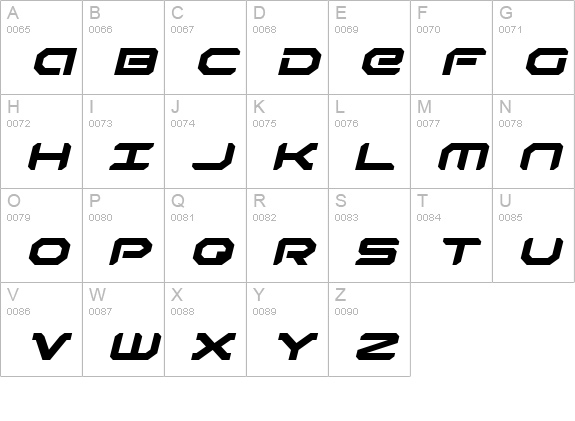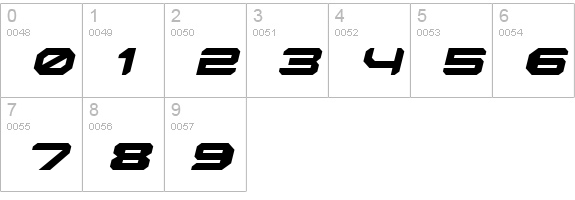
Robotaur Expanded Italic is a distinctive, extended-width, italic variant in the Robotaur typeface family \xE2\x80\x94 well suited to design and typography projects.
Introducing Robotaur Expanded Italic font, a sleek and modern typeface perfect for adding a touch of sophistication to your design projects. The italicized version of Robotaur Expanded exudes elegance and professionalism, making it ideal for logos, headlines, and branding materials. With its clean lines and contemporary feel, Robotaur Expanded Italic font offers a harmonious balance between tradition and innovation. Its unique design elements set it apart from other fonts, making it a standout choice for any creative endeavor. And the best part? Robotaur Expanded Italic font is available for free download at FontsMarket.com. This means you can easily access this stylish typeface without any cost, allowing you to elevate your designs without breaking the bank. Don't miss out on the opportunity to enhance your projects with the distinctive charm of Robotaur Expanded Italic font. Download it now and see the difference it can make in your design work.